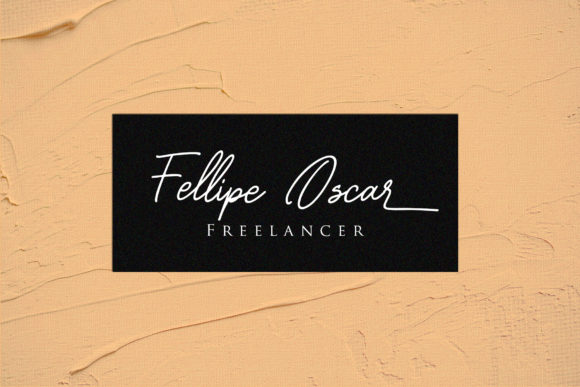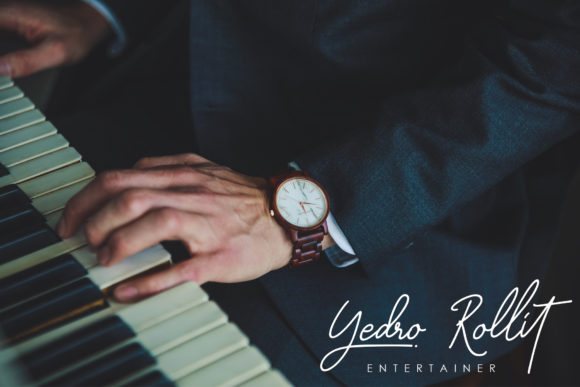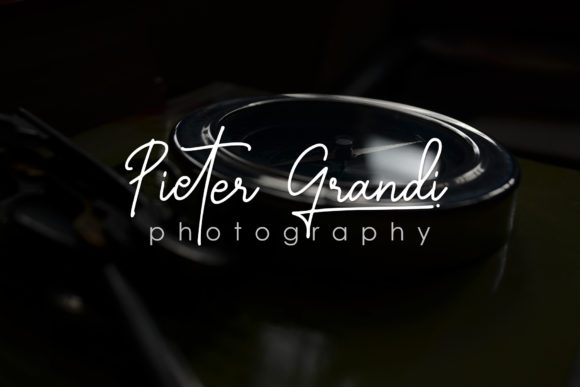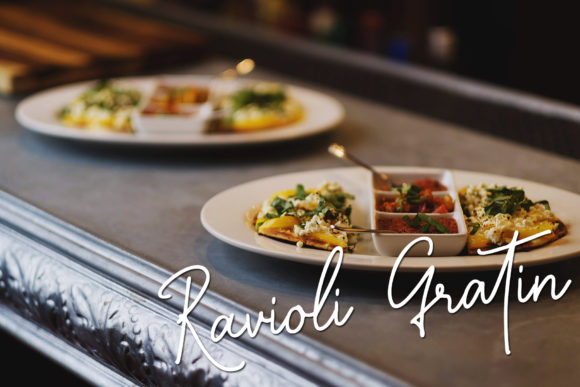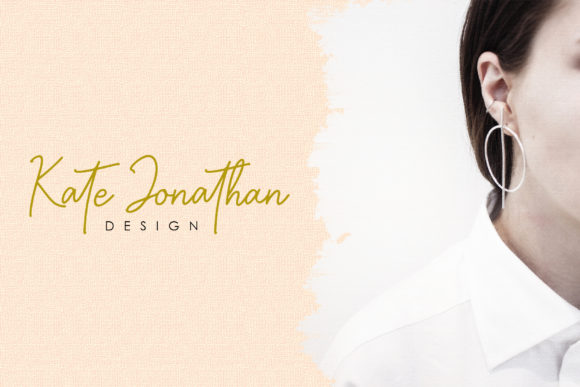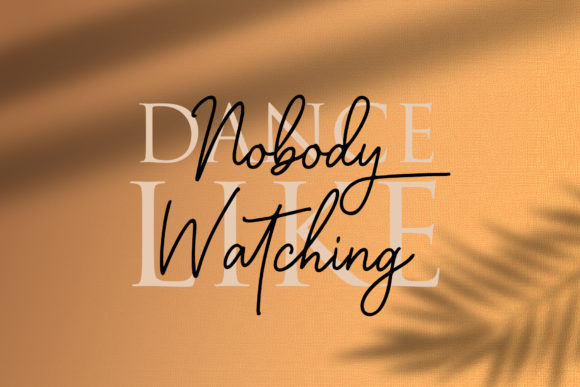
Discover the Elegance of Graciast Font: A Charming Script Font for Your Designs
Are you looking for a font that can add a touch of classy elegance to your designs? Look no further than Graciast Font, a charming script font that is sure to inspire your creativity. With its romantic aesthetic, Graciast Font is perfect for designers and crafters who want to add a touch of sophistication to their work.
What is Graciast Font?
Graciast Font is a beautiful script font that is designed to provide a sense of elegance and refinement to any design. Its flowing lines and delicate curves make it perfect for use in a variety of projects, from wedding invitations and stationery to branding and advertising materials.
The Characteristics of Graciast Font
So, what makes Graciast Font so special? Here are just a few of its key characteristics:
- Romantic Aesthetic: Graciast Font has a distinctly romantic feel, with flowing lines and delicate curves that evoke a sense of elegance and sophistication.
- Script Style: As a script font, Graciast Font is designed to mimic the look of handwriting, with varying line widths and a fluid, connected feel.
- Classy Elegance: Graciast Font is the perfect choice for designers who want to add a touch of class and sophistication to their work.
- Versatile: Whether you’re working on a wedding invitation, a branding project, or a craft tutorial, Graciast Font is versatile enough to be used in a wide range of applications.
How to Use Graciast Font in Your Designs
Graciast Font is easy to use and can be incorporated into a wide range of designs. Here are a few ideas to get you started:
- Wedding Invitations: Graciast Font is perfect for wedding invitations, with its romantic aesthetic and elegant feel.
- Branding and Advertising: Use Graciast Font to add a touch of sophistication to your branding and advertising materials, such as business cards, brochures, and flyers.
- Craft Tutorials: Graciast Font is a great choice for craft tutorials, with its delicate curves and flowing lines making it perfect for use in DIY projects.
- Stationery: Add a touch of elegance to your stationery with Graciast Font, perfect for use in notebooks, journals, and greeting cards.
Tips for Getting the Most Out of Graciast Font
Here are a few tips for getting the most out of Graciast Font:
- Use it sparingly: Graciast Font is a statement font, so use it sparingly to add emphasis and elegance to your designs.
- Pair it with other fonts: Graciast Font pairs well with a variety of other fonts, so don’t be afraid to experiment with different combinations.
- Experiment with colors: Graciast Font looks great in a range of colors, from classic black and white to bold and bright hues.
Graciast Font is a charming script font that is sure to add a touch of classy elegance to any design. With its romantic aesthetic and versatile feel, it’s perfect for designers and crafters who want to create beautiful and sophisticated work. Whether you’re working on a wedding invitation, a branding project, or a craft tutorial, Graciast Font is the perfect choice. So why not give it a try and see the difference it can make in your designs?
Get Inspired by Graciast Font
Take a look at some of the amazing designs that can be created with Graciast Font:
From elegant wedding invitations to sophisticated branding materials, Graciast Font is the perfect choice for designers who want to add a touch of class and sophistication to their work.